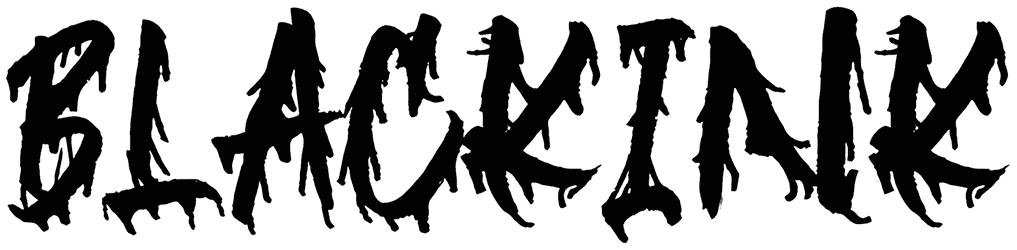
Blackink Font
We offer you to consider Blackink as a reliable font for designing eye-catching flyers, stickers, social media posts, and logos. This all-caps horror font comes with chunky and crooked characters, thus it has the potential of sharing a sense of momentum, fear, dread, or jauntiness with the audience.